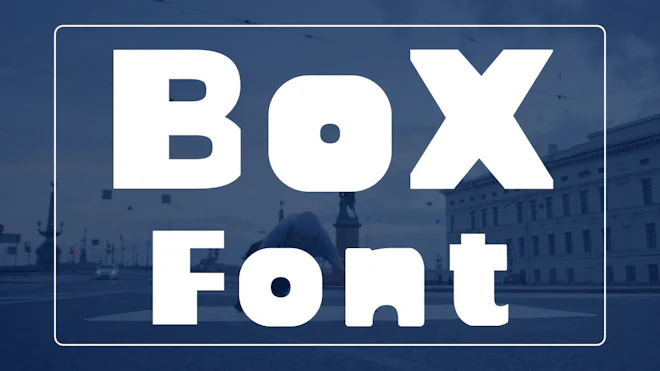
This stock motion graphics video pack includes 52 different clips of box typefaces on a transparent alpha channel. Includes 26 capital letters and 26 lower case letters.